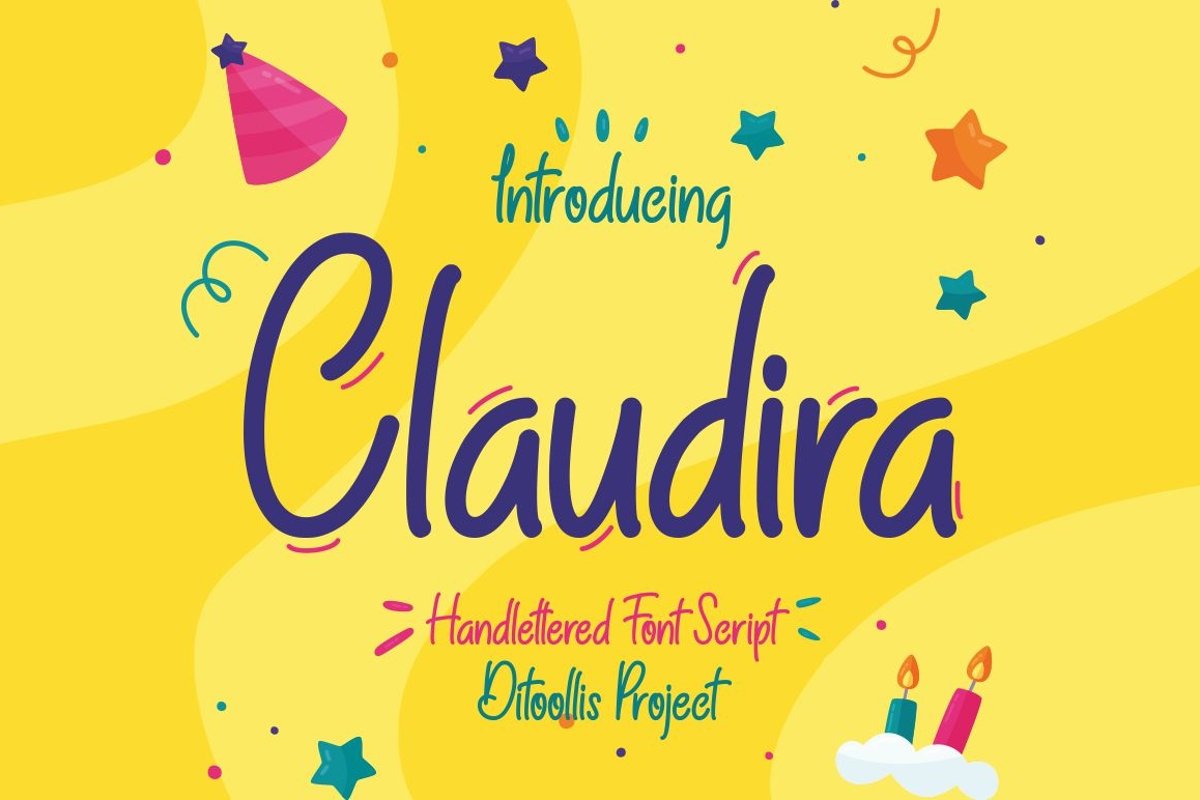
Claudira
I will introduce my newest product "Claudira"This font is very modern, and is perfect for your design ...This font is suitable for business cards, logos, covers, comics, invitations, etc.
Equipped with font:- Uppercase- Lowercase- numbers- Punctuation- Multilingual
And of course there are several other features:- Ligatures